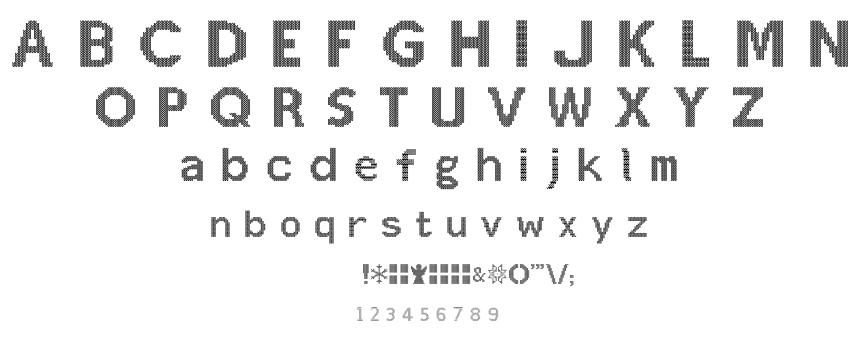
This font was created for my personal projects called Xmas Knit Font however I have decided to release this as donationware on behalf of Charity Fonts to help raise money for Save the Children Christmas Jumper Day 2014. Please make things better wear a digital sweater typeface and donate @ http://bit.ly/xmasjumperdaydonate